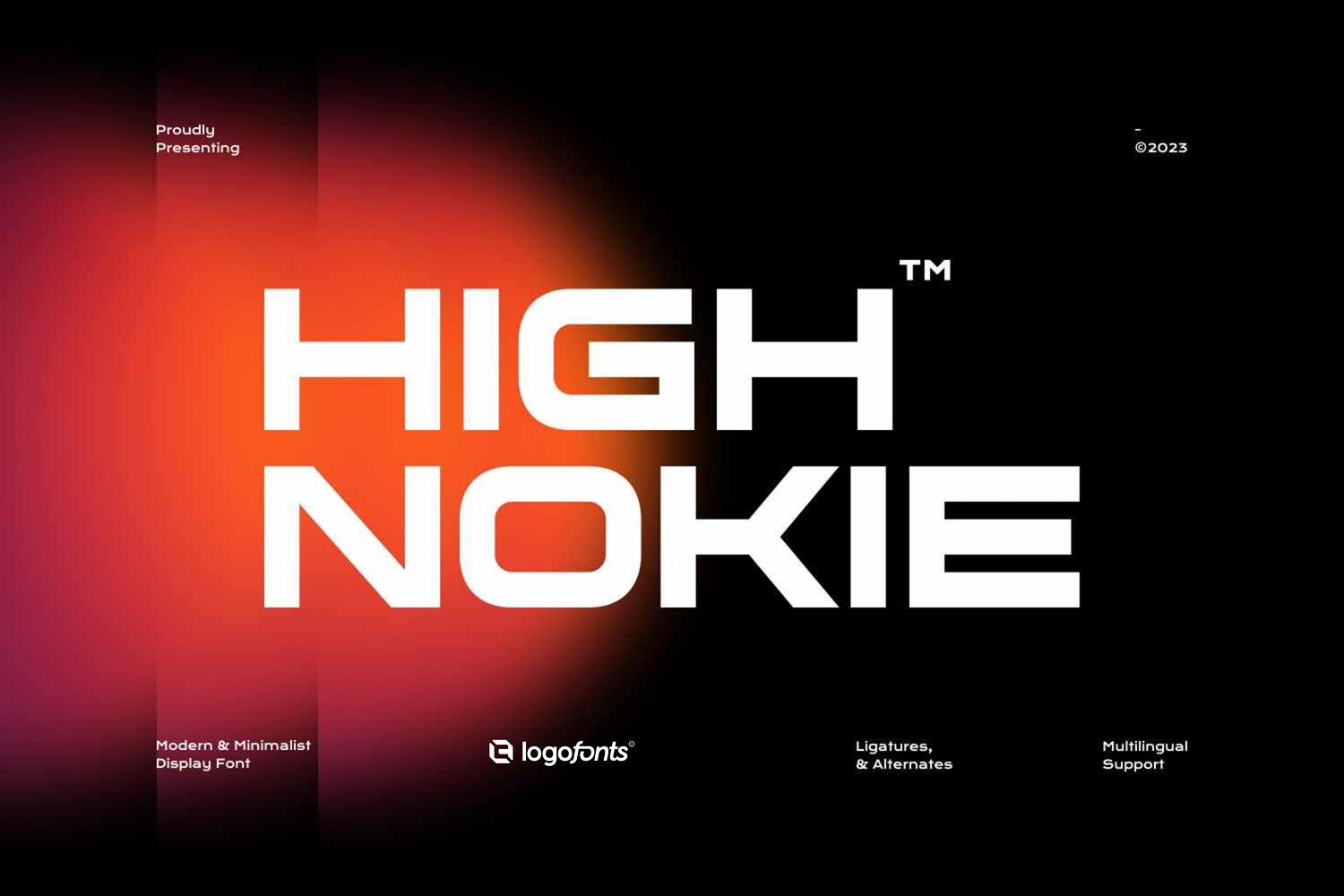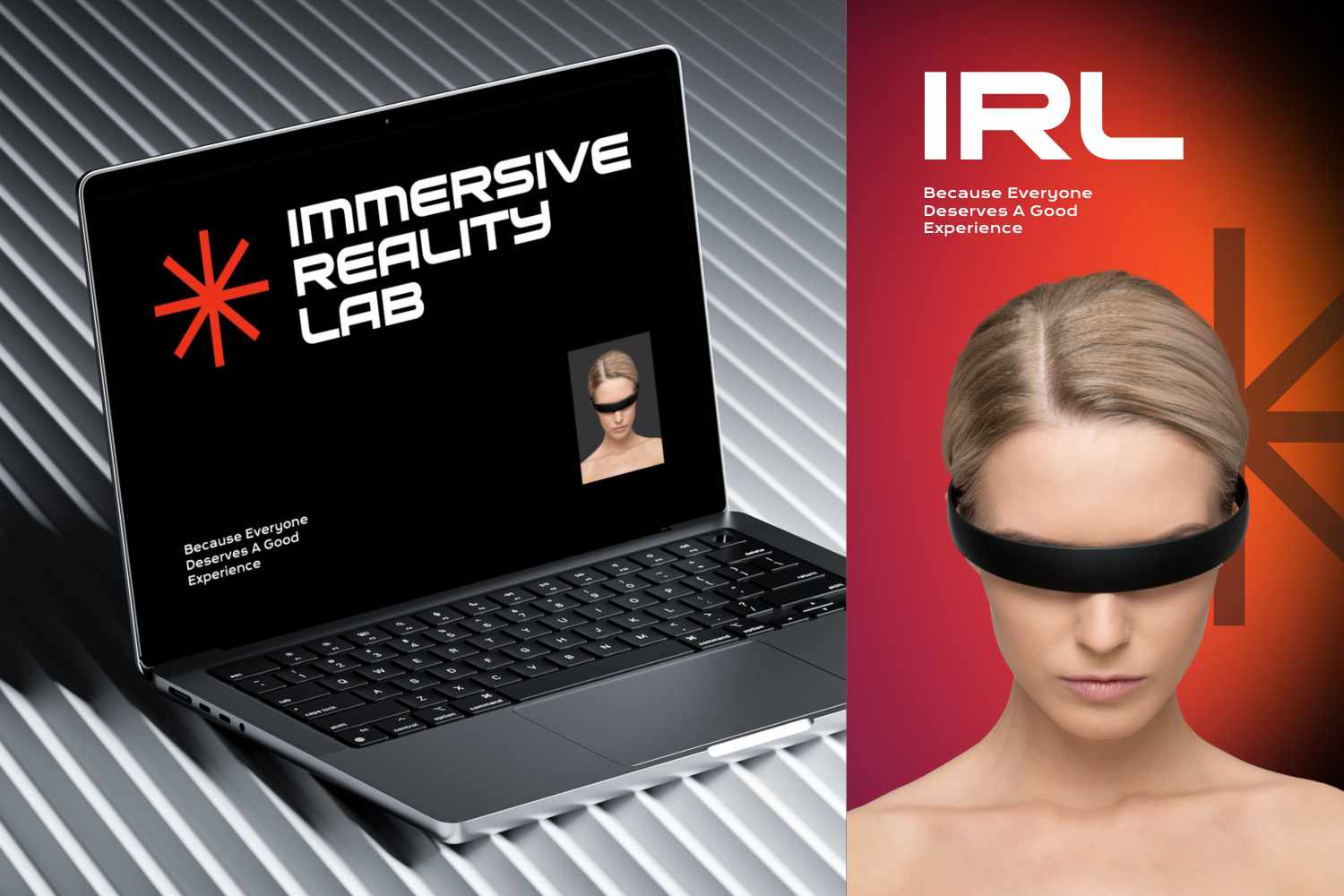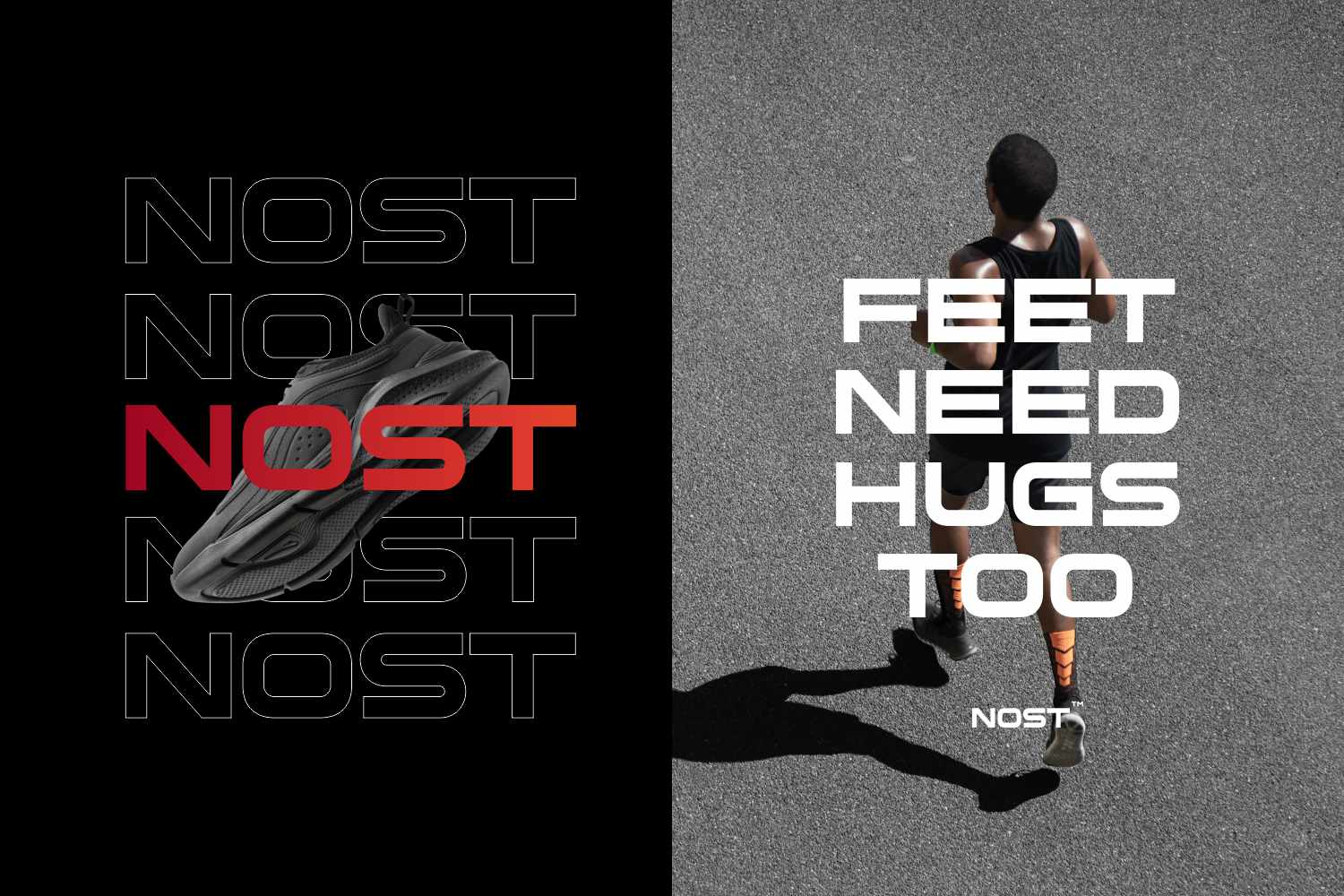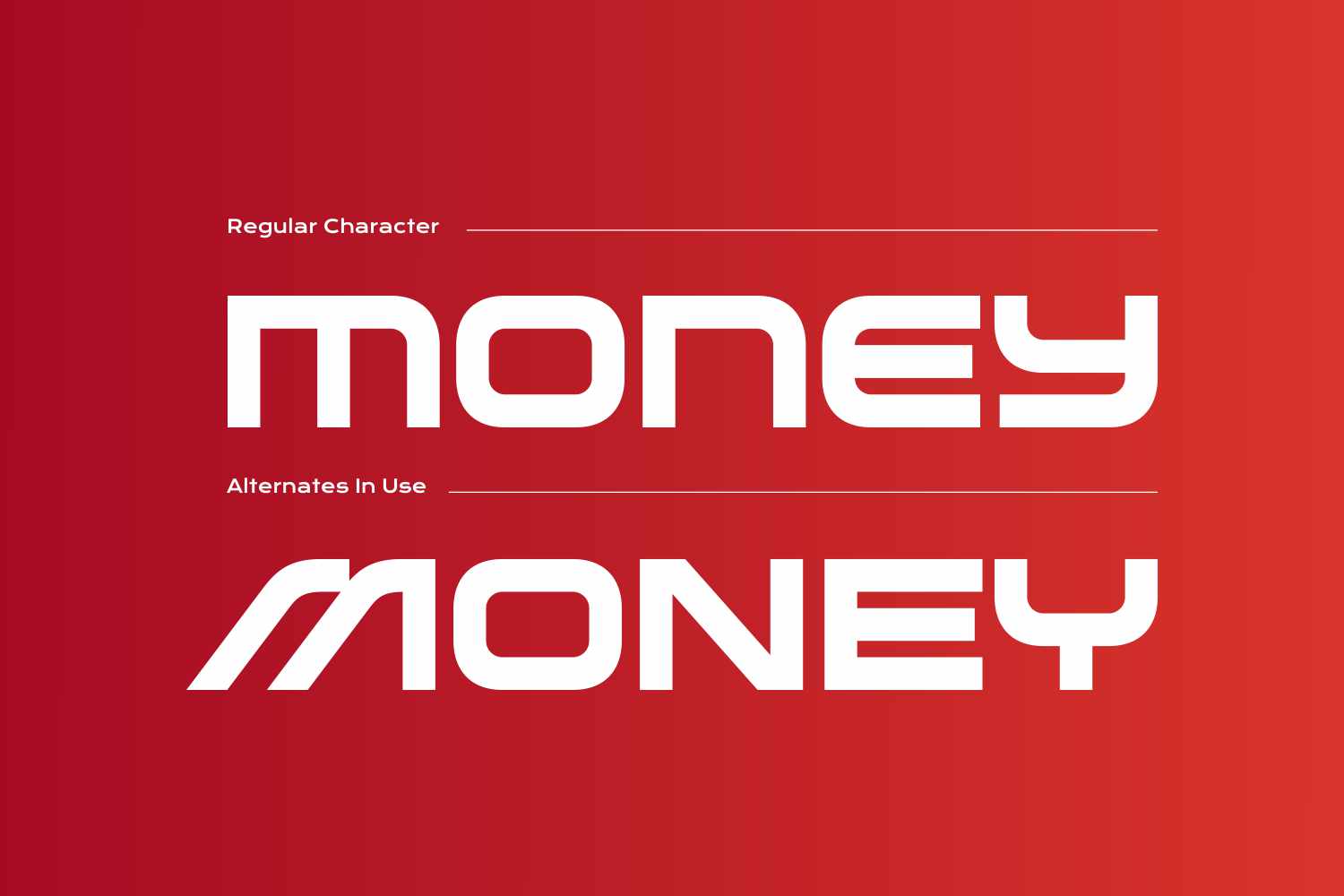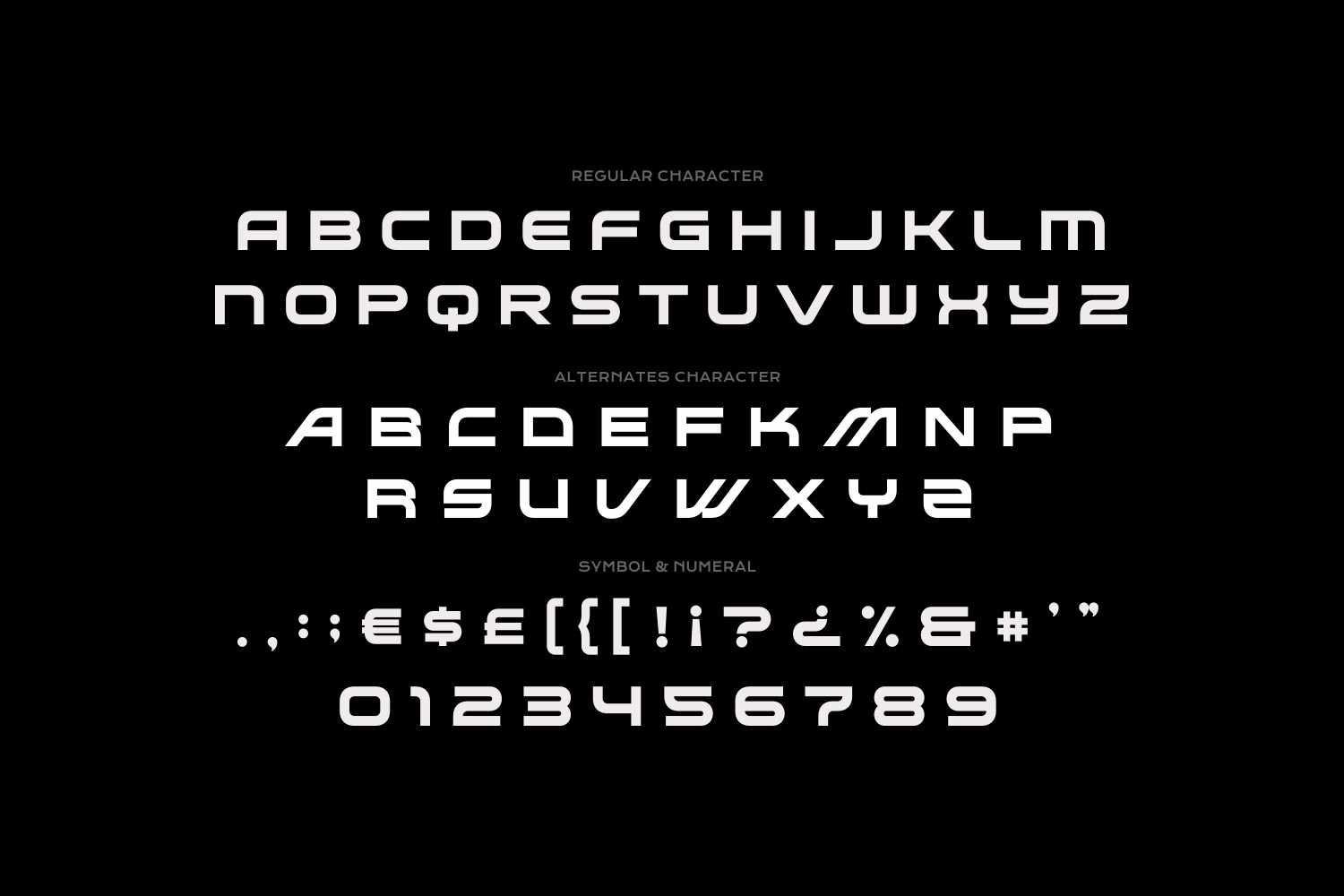
High Nokie is a modern and minimalist display font with futuristic aesthetics and clean geometric lines. Designed with precision and functionality in mind, this font combines tech-inspired forms with refined legibility, making it ideal for UI design, sci-fi branding, product packaging, and advertising in digital-forward industries.
Featuring sleek alternates and distinctive ligatures, High Nokie delivers a bold and innovative typographic voice. Its sharp curves and modular style enhance any visual identity, while the font’s versatility ensures it stands out in both print and screen applications.
High Nokie